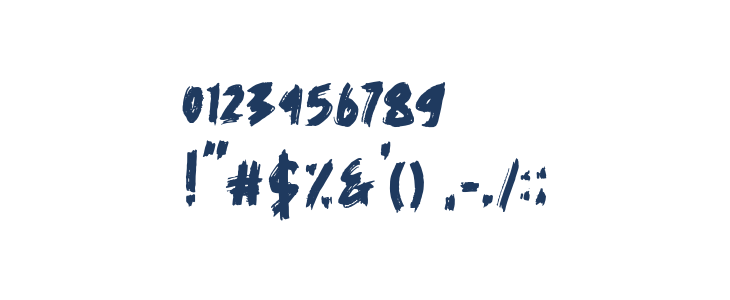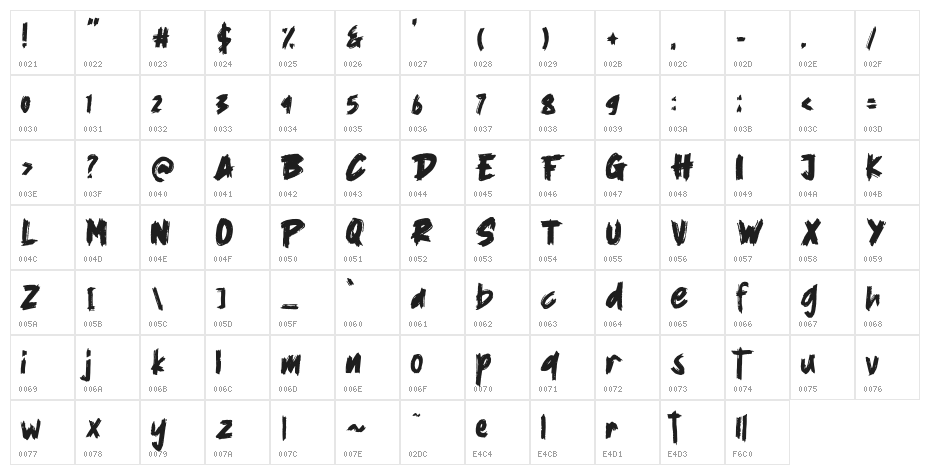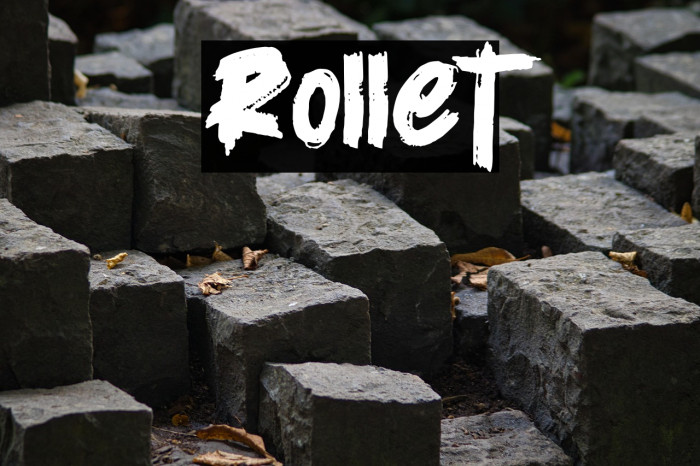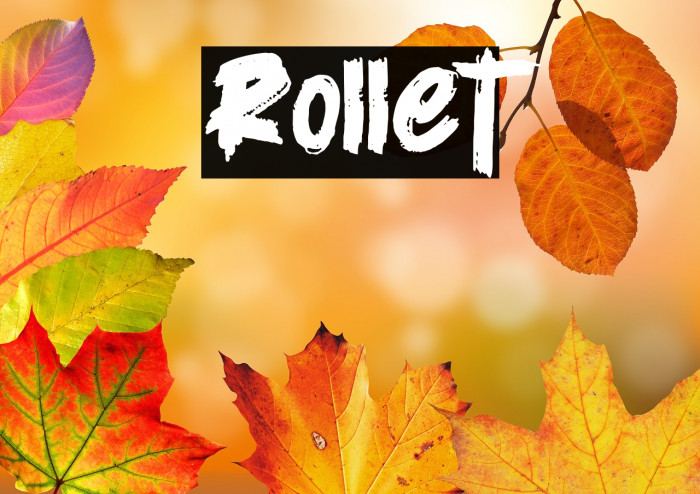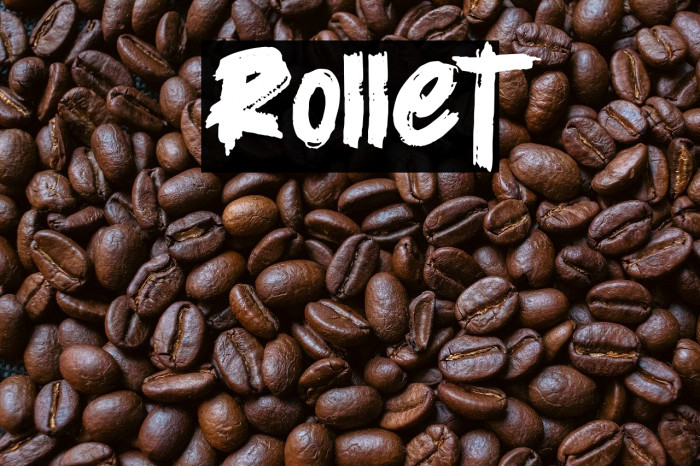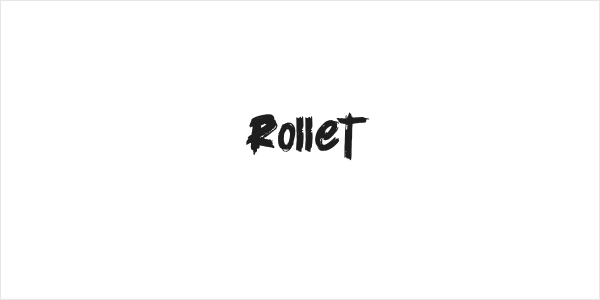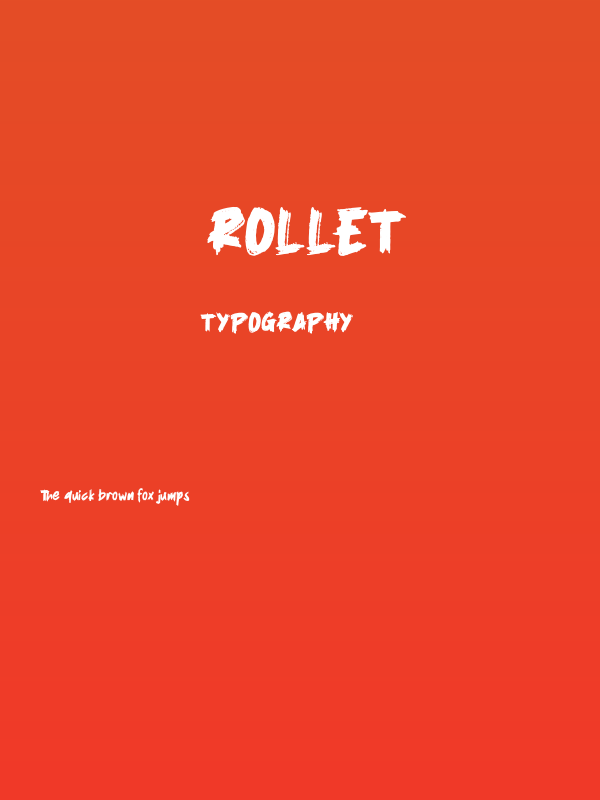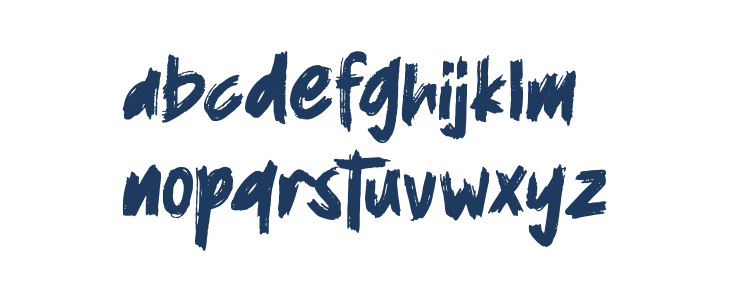
Rollet Font
Rollet Description
This font features a bold, expressive style with a hand-painted appearance. The strokes are thick and uneven, giving it a dynamic and energetic feel. The edges are rough and irregular, adding to its raw and artistic character. It captures the essence of a brush script, making it ideal for projects that require a personal, handcrafted touch. The uppercase and lowercase letters maintain a consistent style, while the numerals and special characters complement the overall aesthetic. This font is perfect for designs that aim to stand out with a bold statement.
| Proposed Projects | Ideal for posters, album covers, branding projects, and any design that requires a bold, artistic touch. |